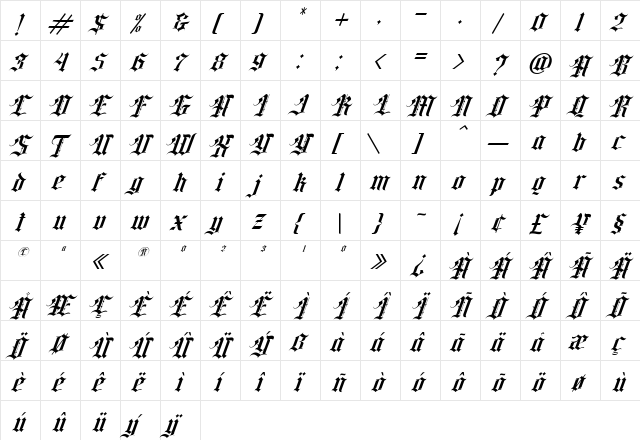
Classic rock band Italic
Design Context for Classic rock band Typeface
Classic rock band wears its vintage influences proudly, with letterforms that recall mid-century signage, classic packaging, and nostalgia-driven design. The slanted form adds forward momentum and visual energy.
Font Pairing: Combine Classic rock band with a simple slab or neutral sans — period-accurate companions reinforce the vintage feel without competing for attention.
Pro Tip: Use Classic rock band for headlines and pull quotes rather than body copy — its personality is best appreciated in short, focused bursts.